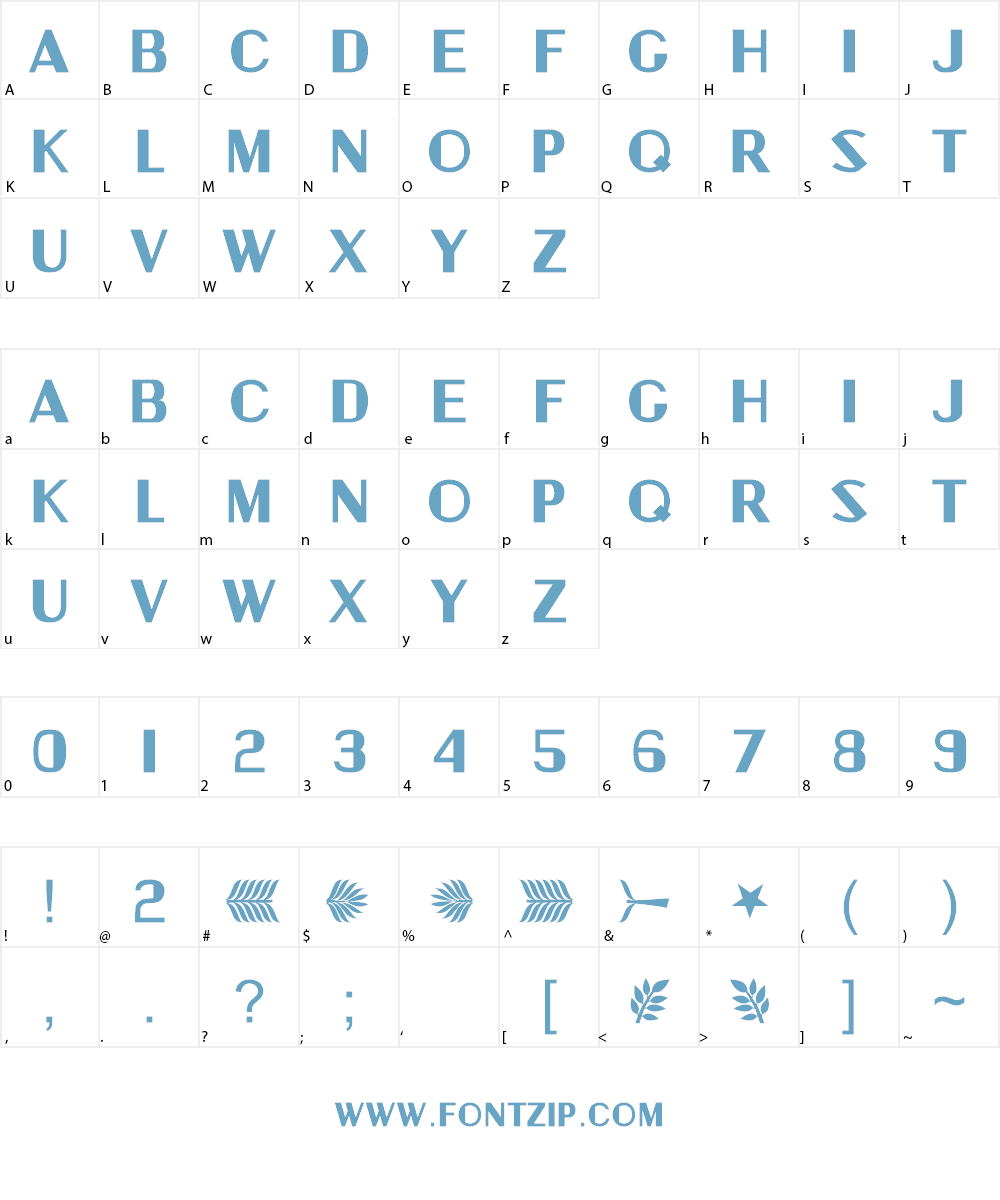
DS_Charity is a font I developed for Dr. James Riopelle. This font is based on the lettering on the seal of Charity Hospital of New Orleans, Louisiana.